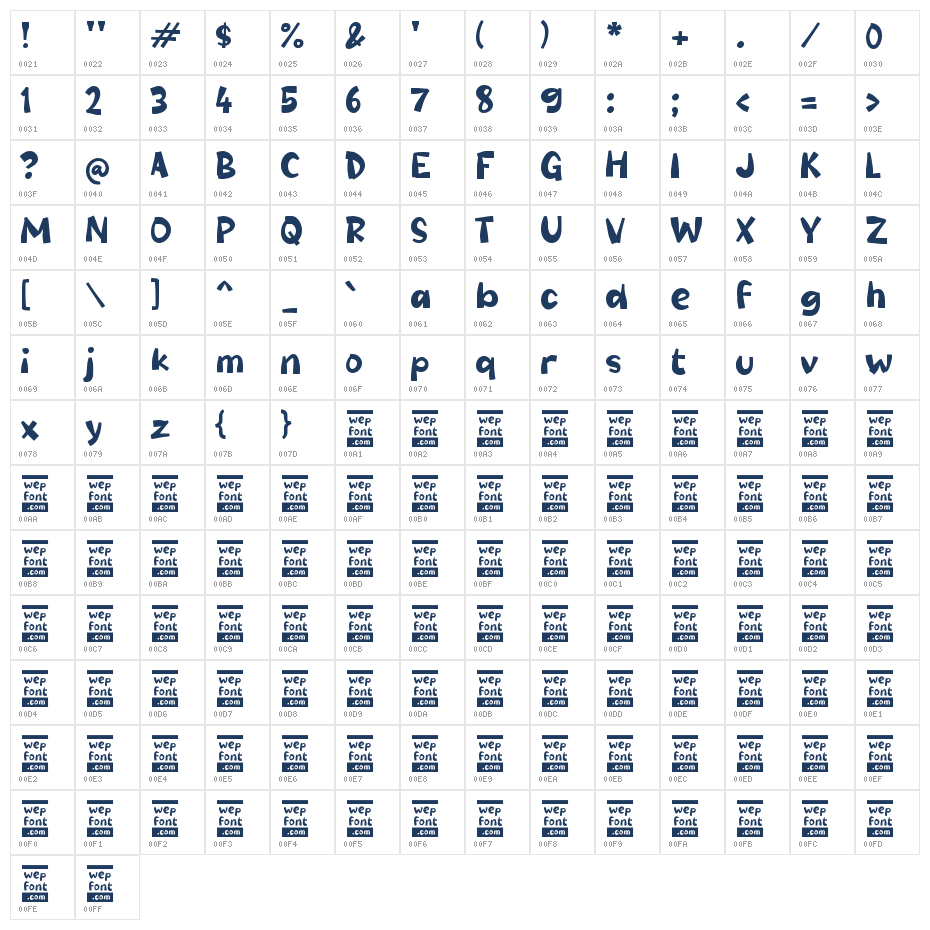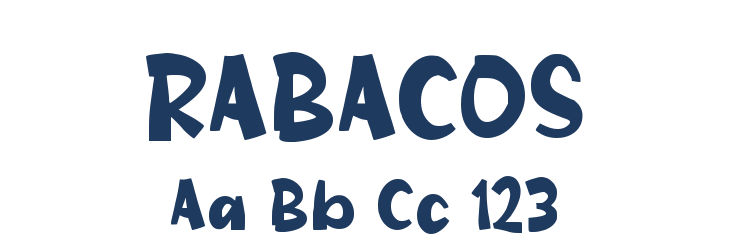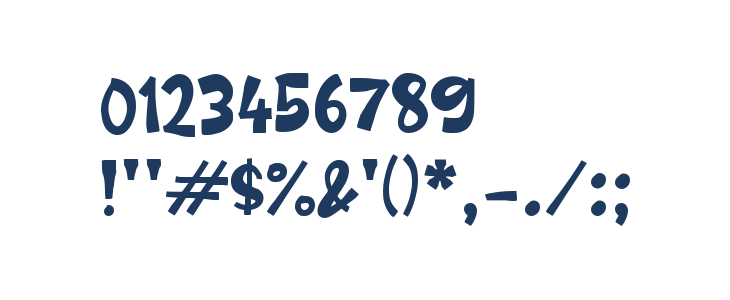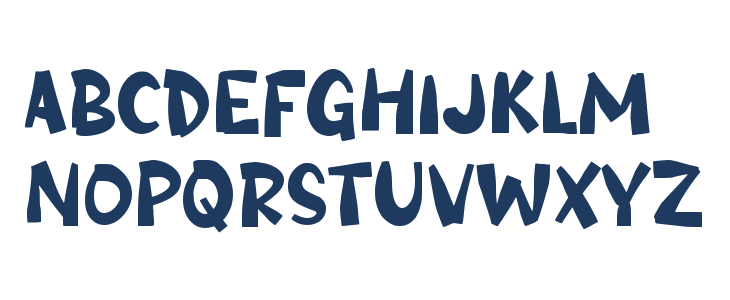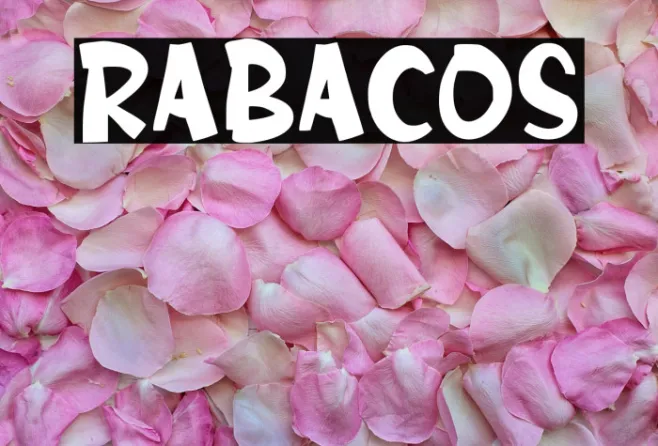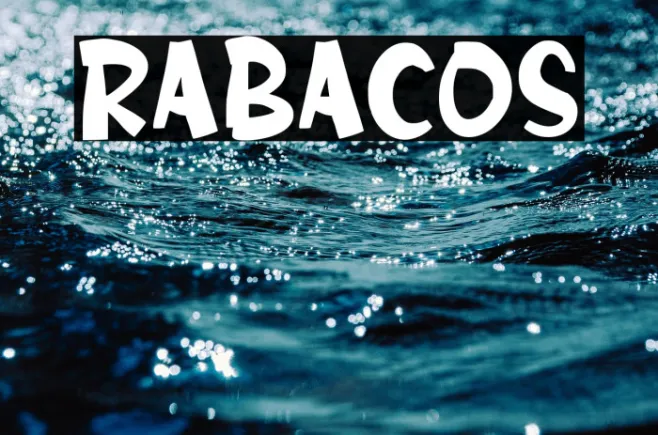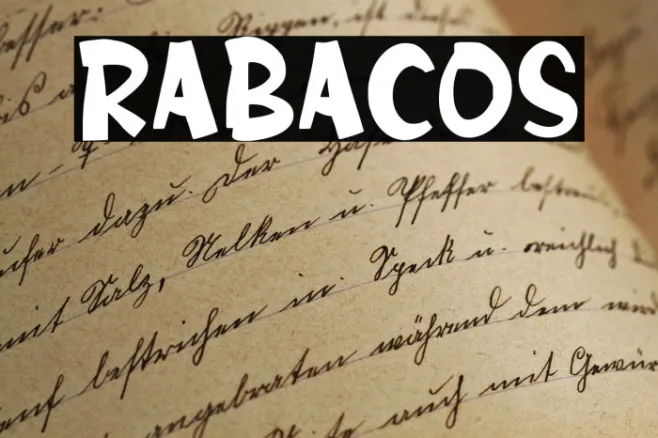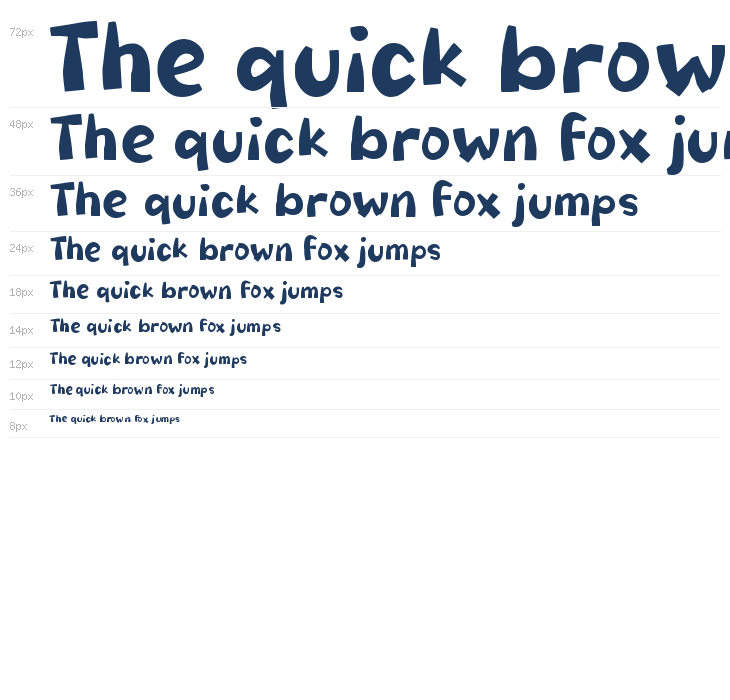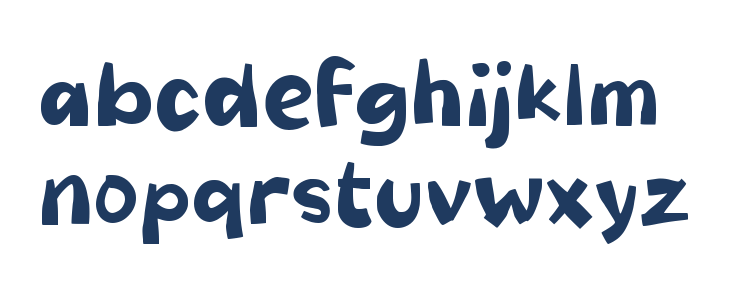
RABACOS Font
RABACOS Description
A playful, bold, and rounded handwritten style font with irregular strokes and a casual appearance.
| Use Case | Headlines, Posters, Children's materials, Logos |